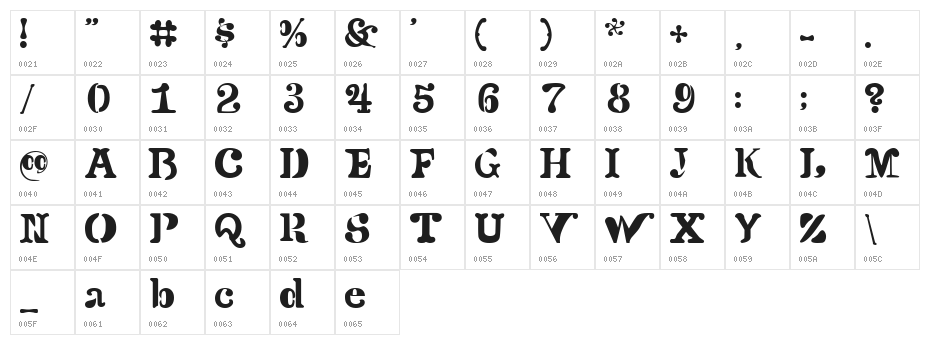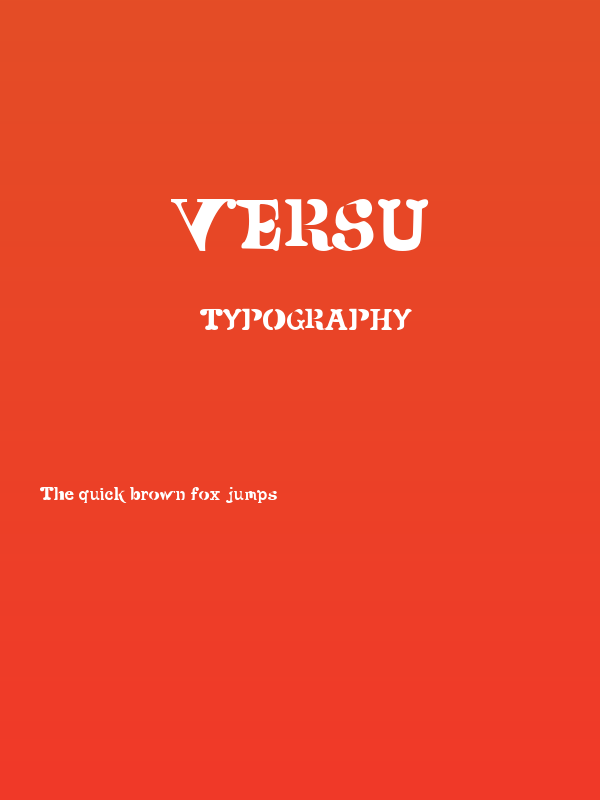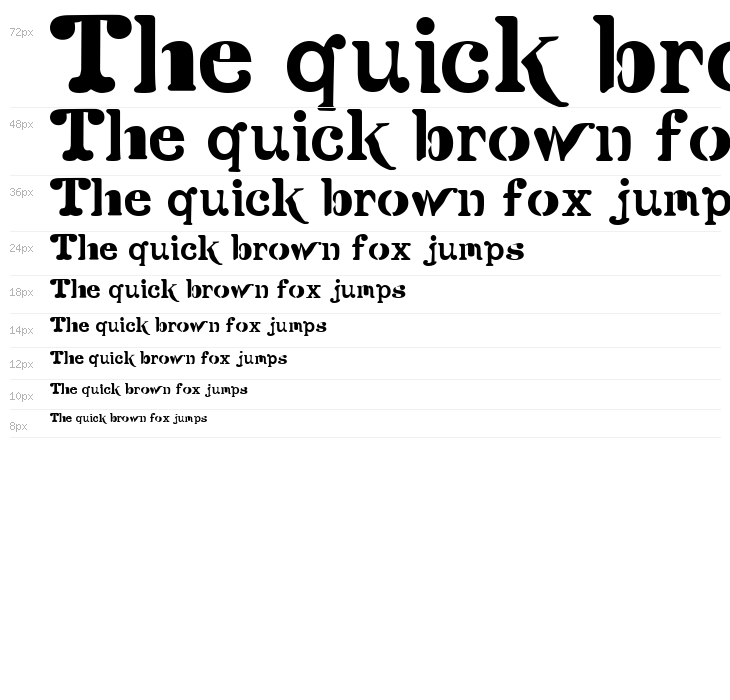
Versu Font
Versu Description
This font features a bold and decorative style, characterized by its unique and playful curves. The uppercase letters have a strong presence with thick strokes and rounded edges, giving them a whimsical yet robust appearance. The lowercase letters maintain this playful aesthetic, with some characters exhibiting exaggerated serifs and flourishes. Numbers are equally bold, ensuring they stand out in any design. The special characters are creatively designed, complementing the overall style of the font. This font is ideal for projects that require a touch of creativity and boldness.
| Proposed Projects | Ideal for posters, logos, children's books, and creative branding projects. |